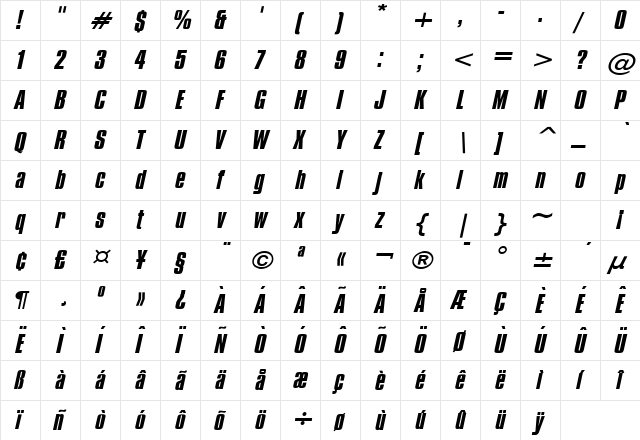
Commador Wide Italic
Design Context for Commador Wide Typeface
Commador Wide is a composed and adaptable typeface that performs quietly and consistently across a wide range of design contexts. The dynamic lean of this cut emphasises speed and emphasis in any layout.
Pro Tip: Use Commador Wide for emphasis, pull quotes, and subheadings where its slanted energy can add rhythm to the layout.